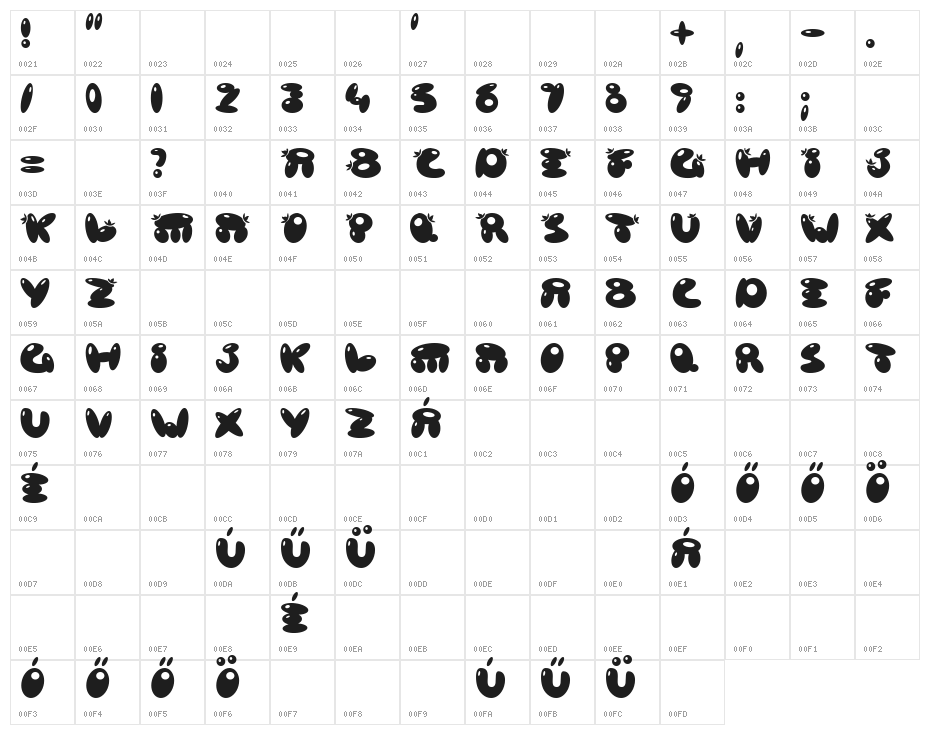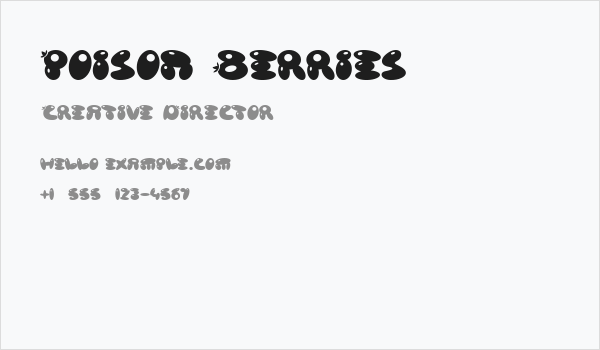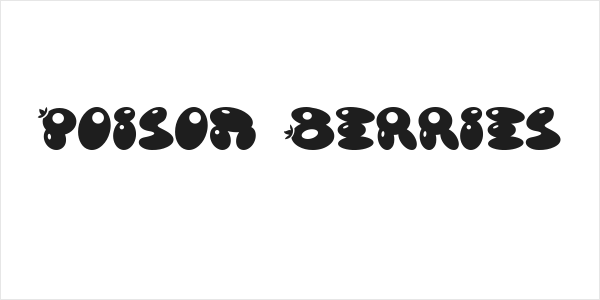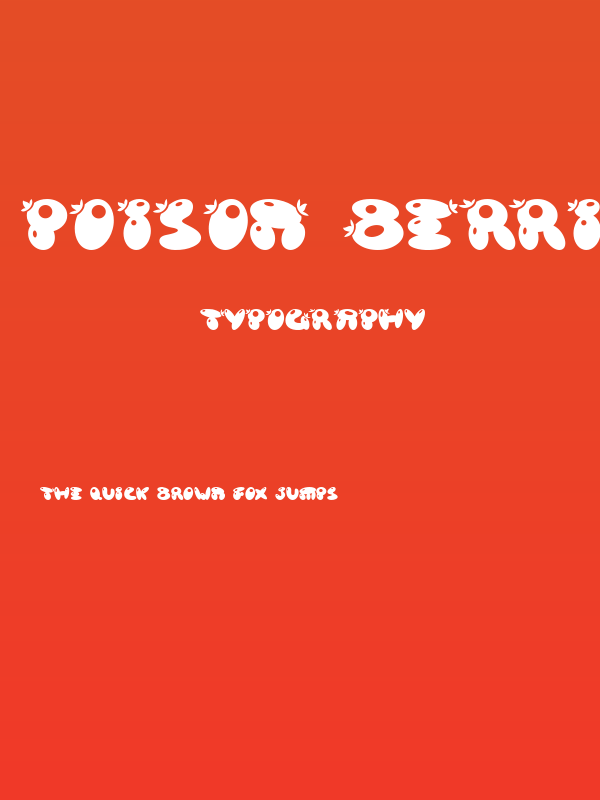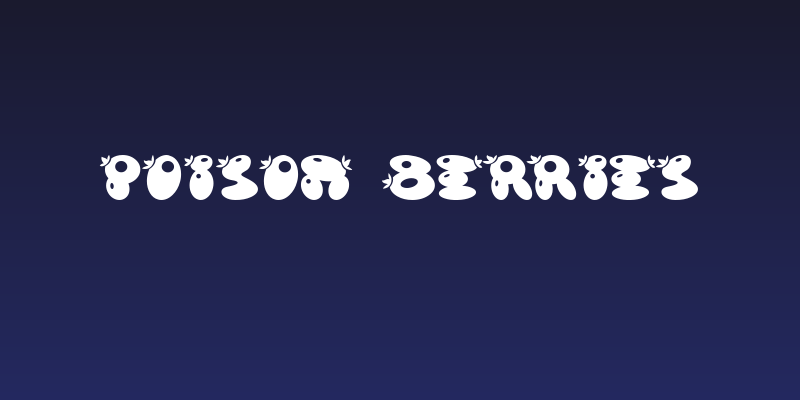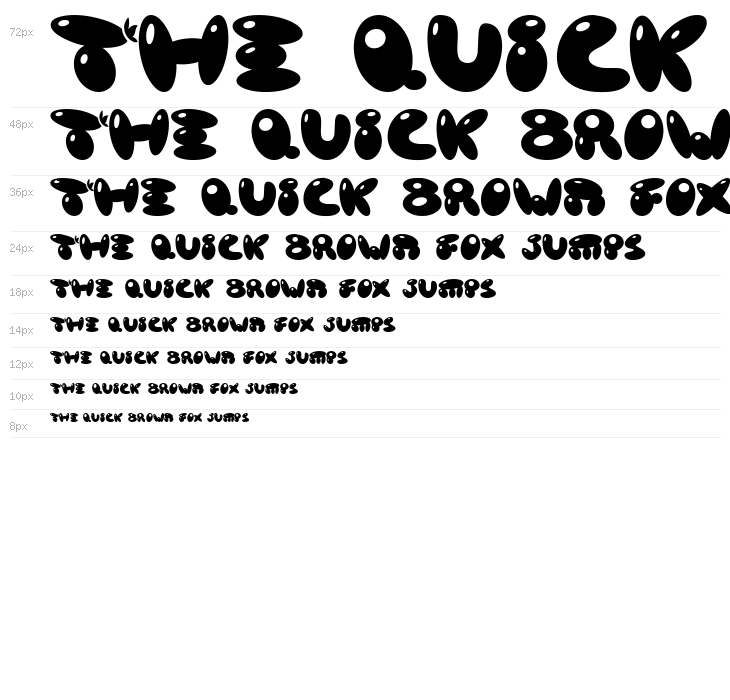
Poison Berries Font
Poison Berries Description
This playful and bold font features rounded, bubble-like characters with a whimsical touch. Each letter is adorned with small, leaf-like accents, giving it a unique and organic feel. The font's thick, uniform strokes create a sense of fullness and fun, making it ideal for eye-catching designs. The numbers and special characters maintain the same bubbly style, ensuring consistency across all elements. Its distinctive appearance makes it perfect for projects that require a lively and engaging typeface.
| Proposed Projects | Ideal for children's book covers, playful branding, party invitations, and creative posters. |